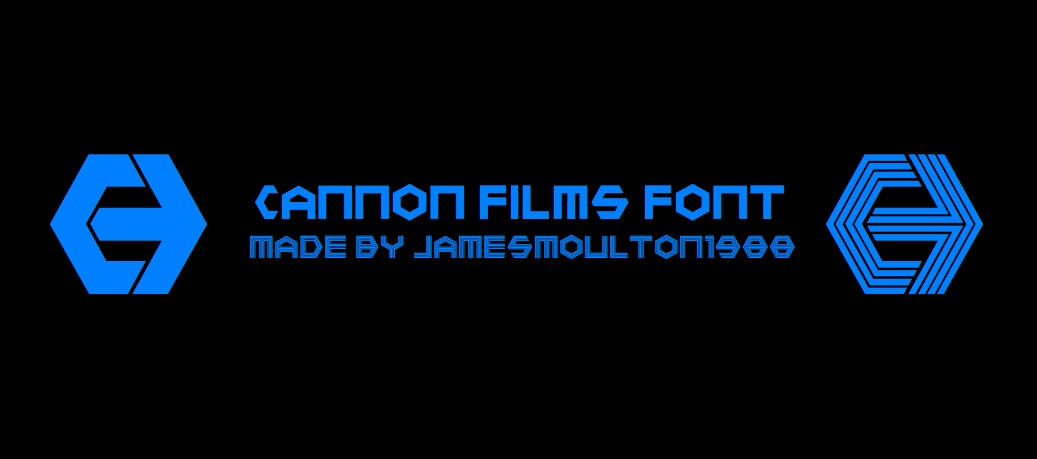
Here's the "Cannon Films" font. The uppercase letters and some punctuation marks are "solid mode", and lowercase letters and numbers are "multi-line mode". The brackets are "solid" Cannon Films logo & an arrow. The braces are "multi-line" Cannon Films logo & an arrow.Download link for this font ( www.mediafire.com/file/jr3s28u… ).